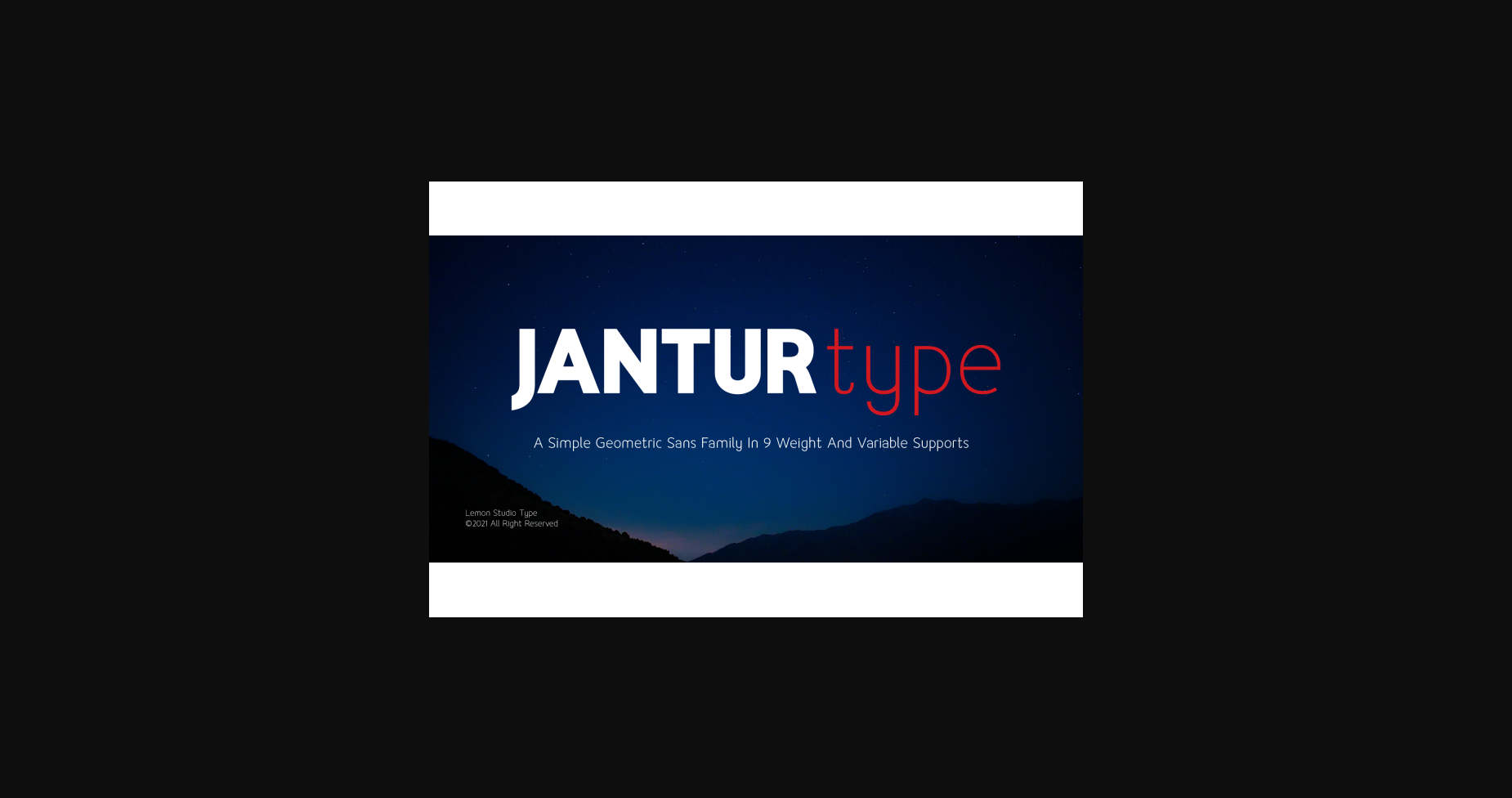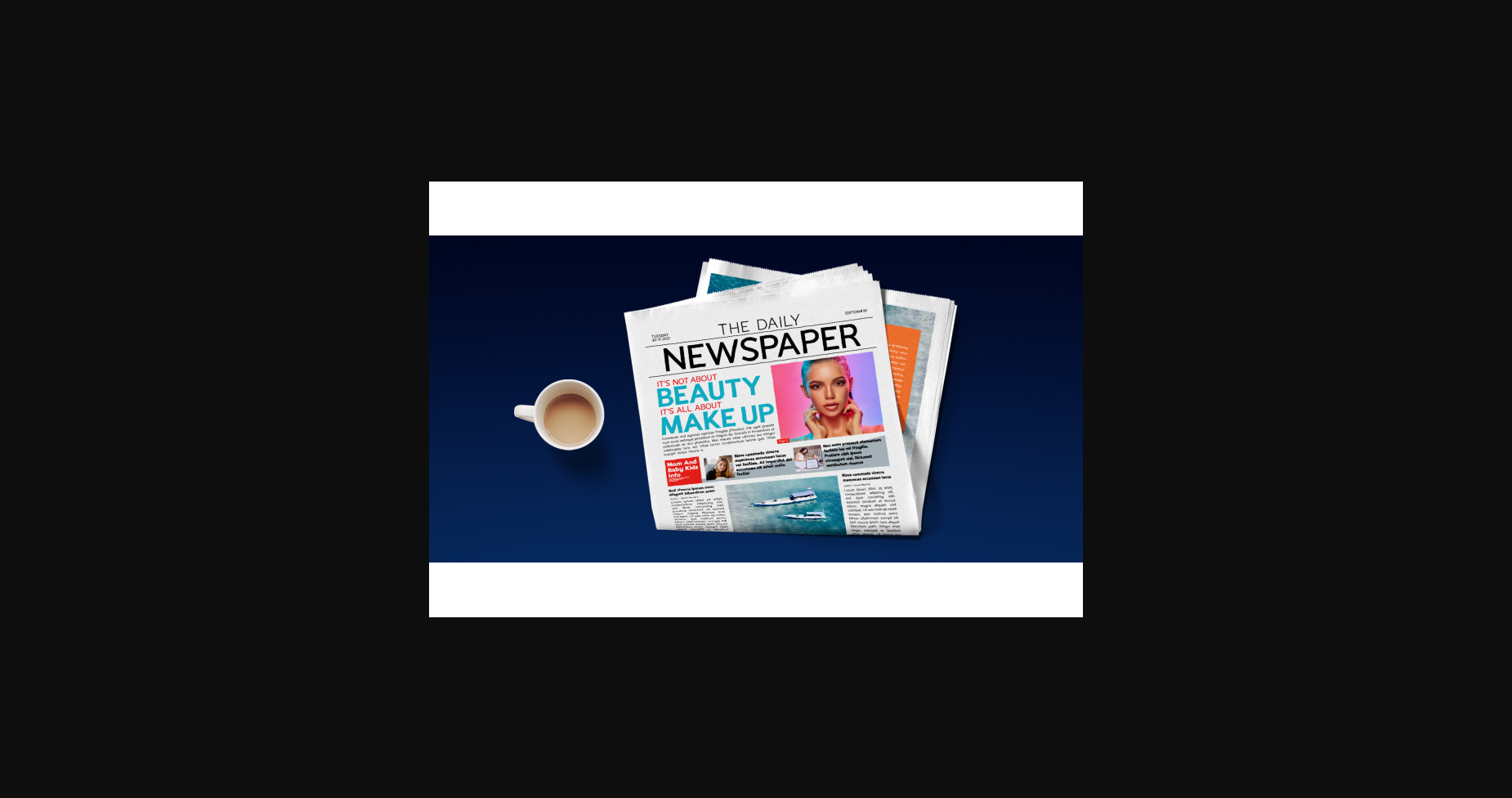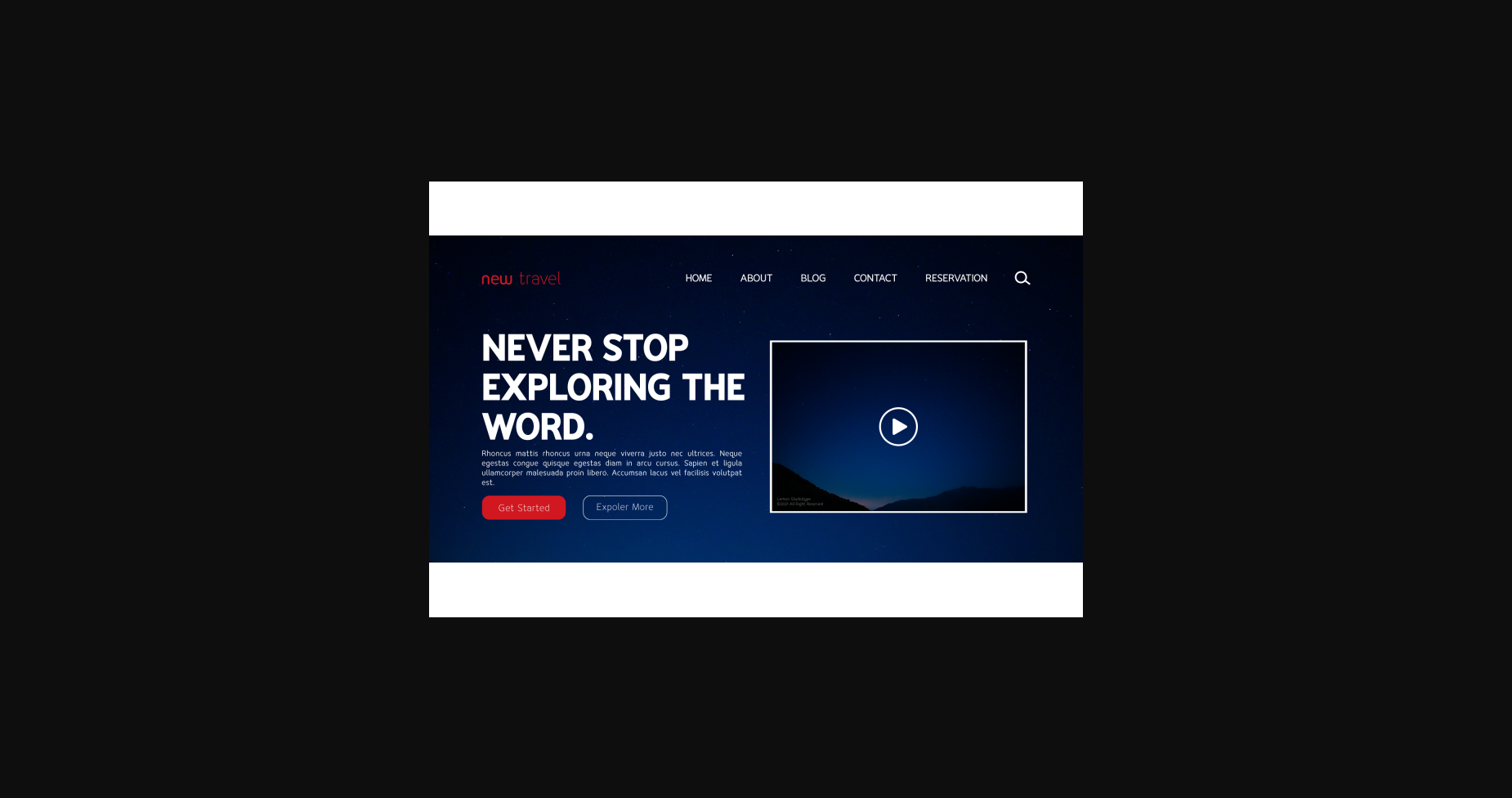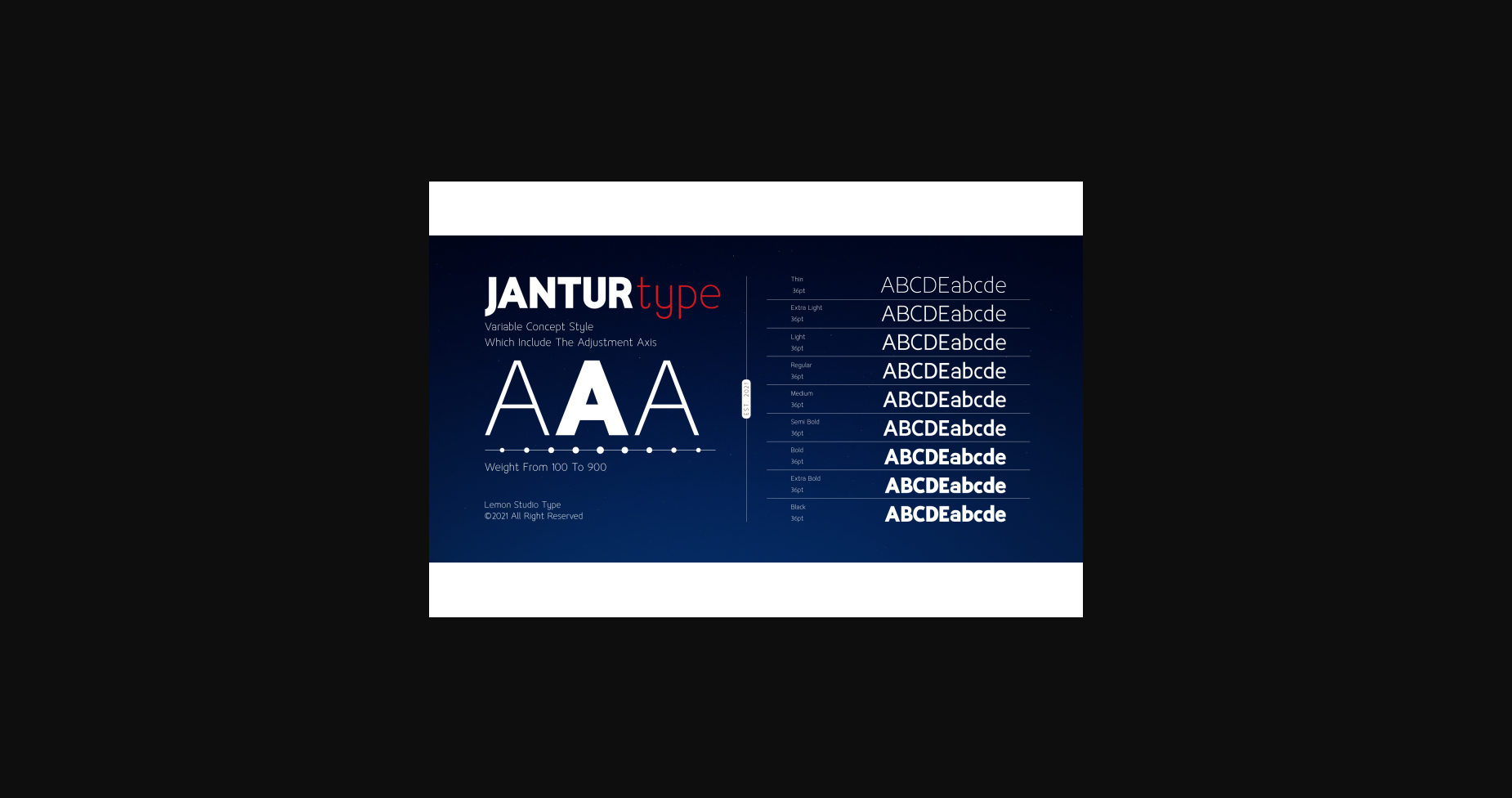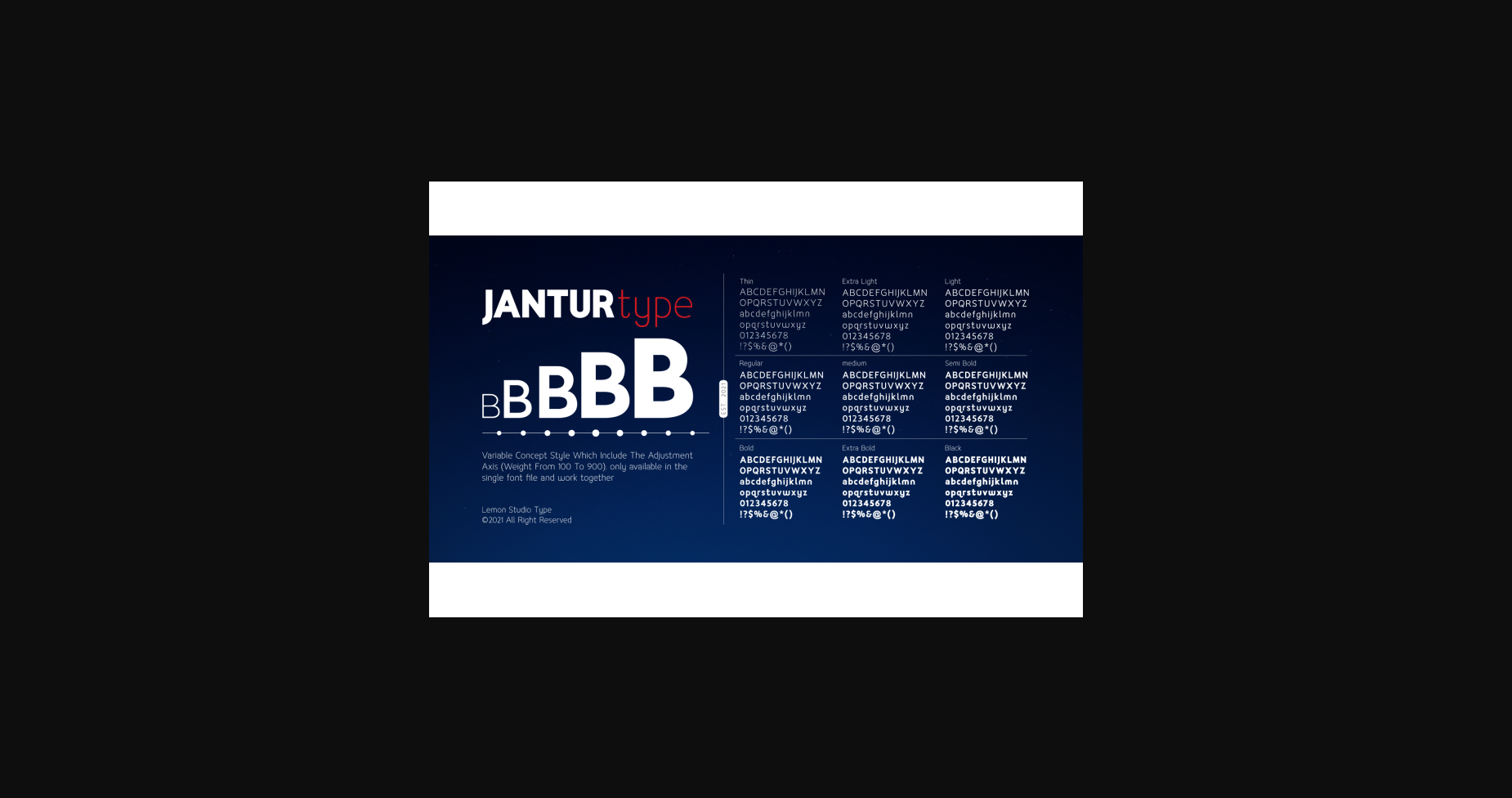
About Jantur Font
Jantur Type is a simple geometric sans family with charming curves and natural flow, variable font technology, and its axis weight range spreads from thin to black forms. Flexible and adaptable.
This font is suitable for any project. Great for graphic design and any display use. It can easily work for web, signage, corporate as well as editorial designs.